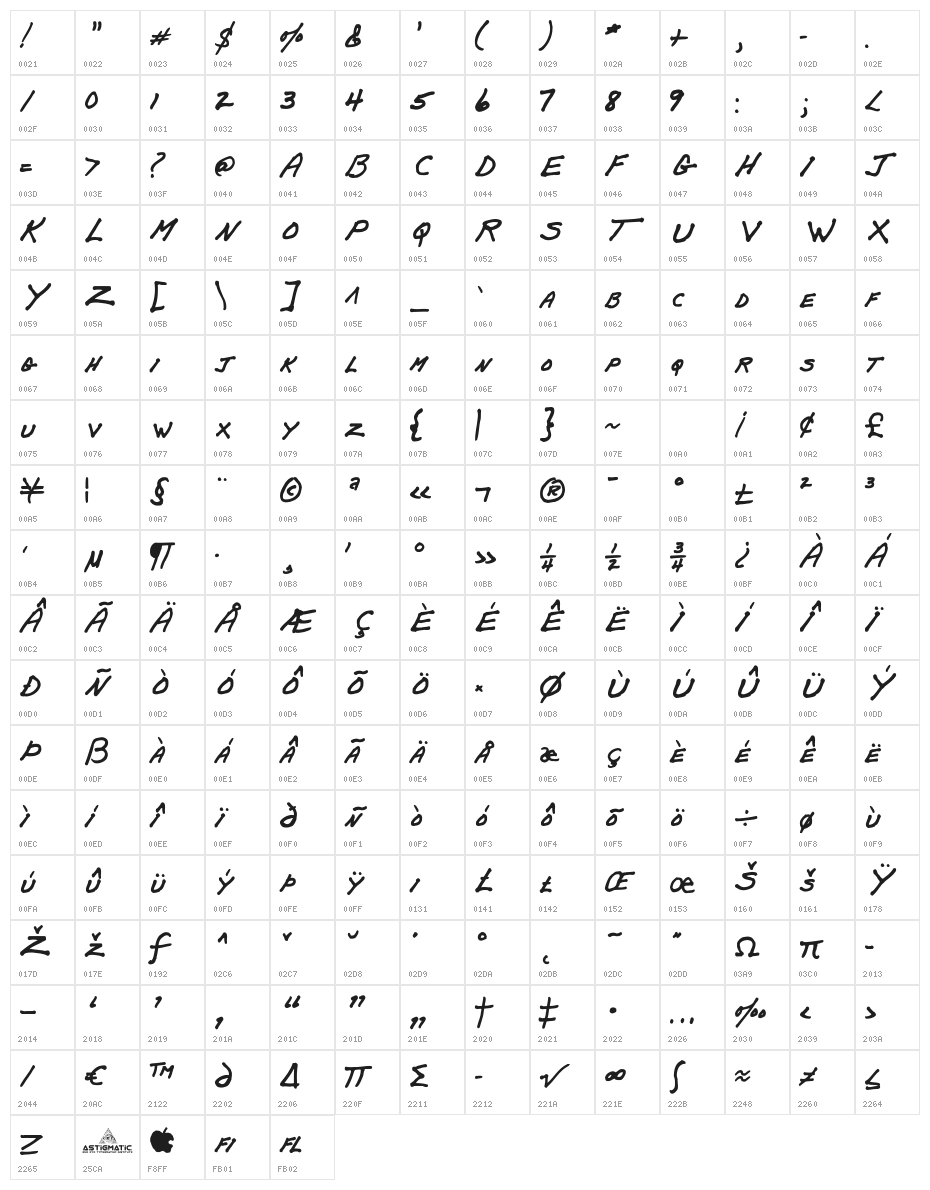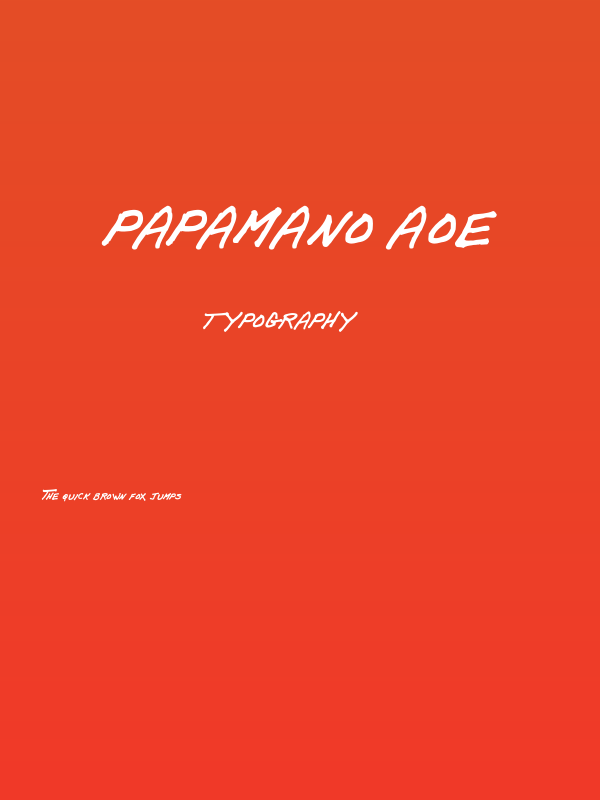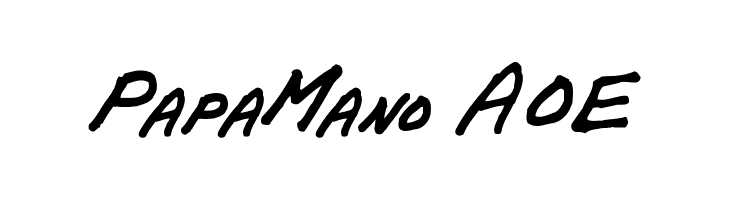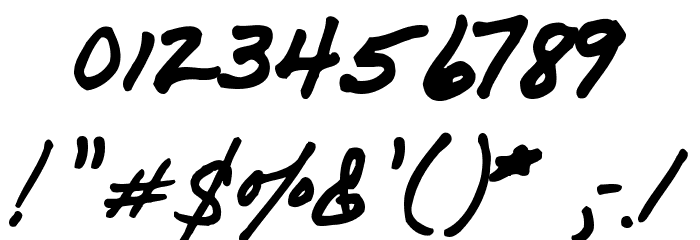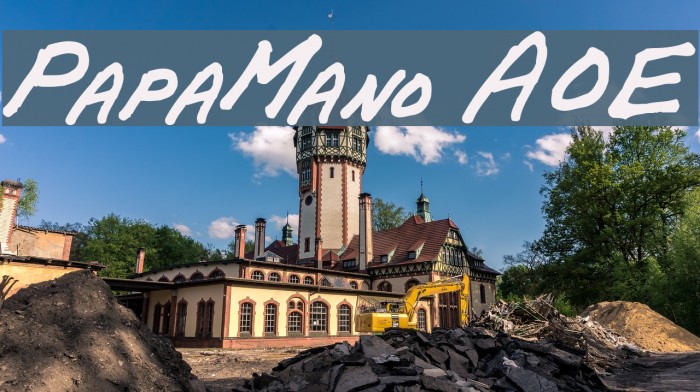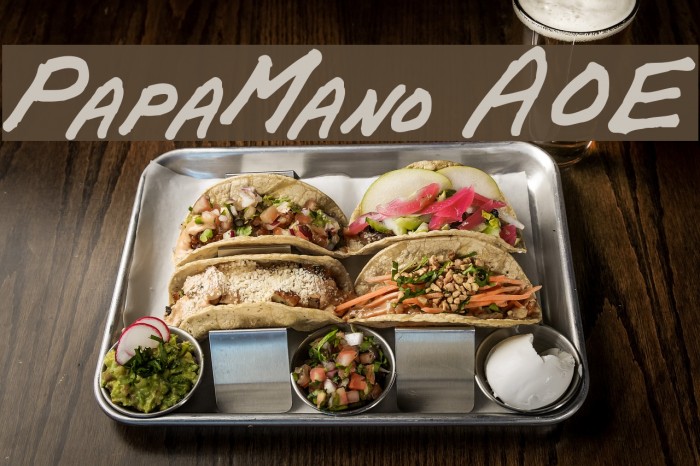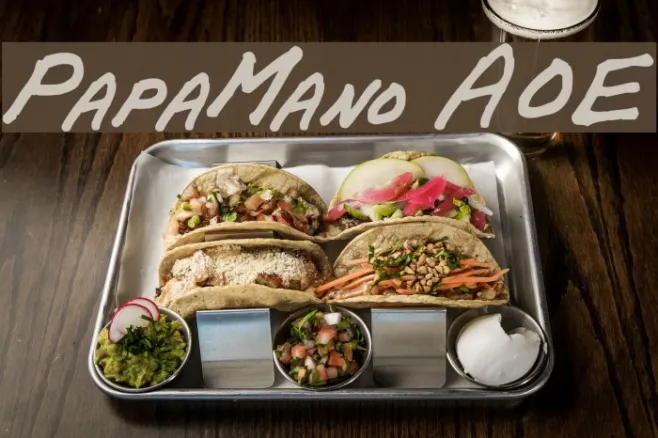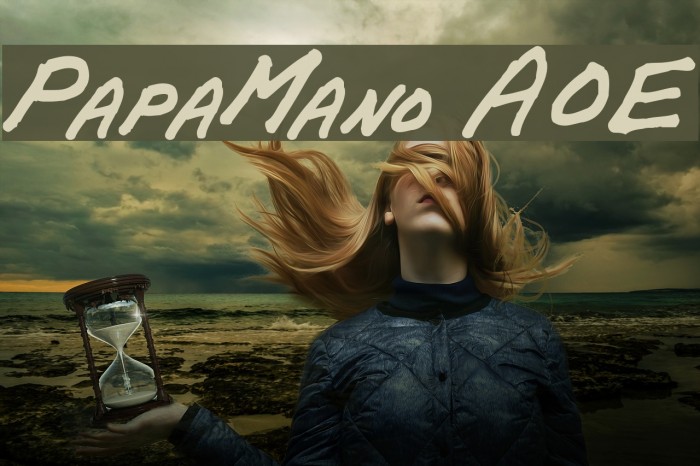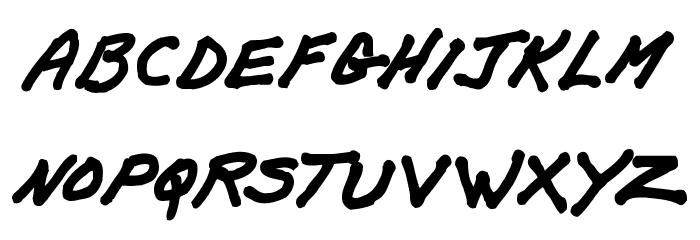
PapaMano AOE Font
PapaMano AOE Description
This font features a bold, handwritten style with a dynamic and energetic flow. The letters are slightly slanted, giving it a casual yet expressive appearance. The strokes are thick and consistent, creating a strong presence on the page. The uppercase and lowercase letters maintain a uniform style, with rounded edges and smooth curves. Numbers and special characters follow the same design, ensuring a cohesive look across all text elements. This font is ideal for projects that require a personal touch or a creative flair.
| Overall Style | Casual, Expressive |
| Use Case | Headlines, Logos, Creative projects |
| Proposed Projects | Great for greeting cards, invitations, posters, and branding materials that need a personal and creative touch. |